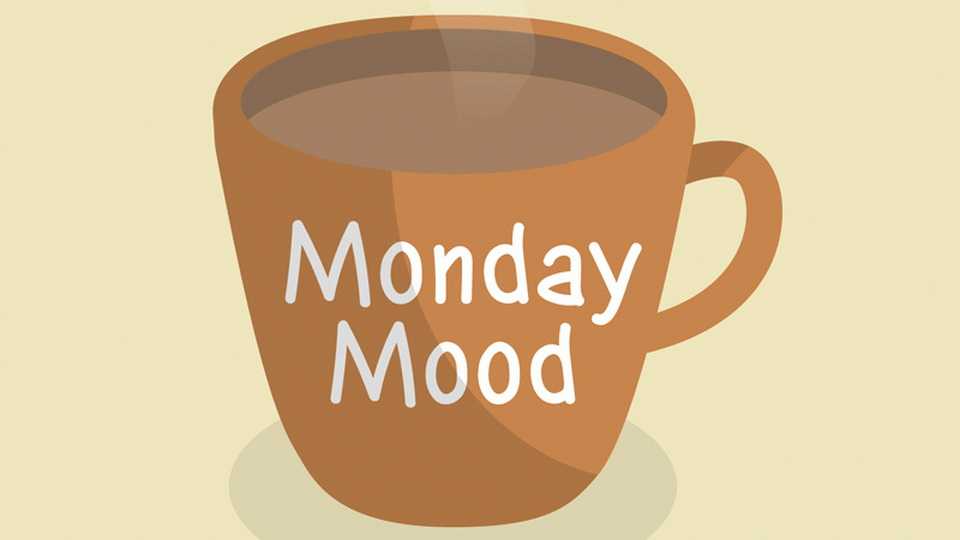
Download Monday Mood font, a hand-drawn comic typeface that brings your ideas to life with a playful and expressive touch. This font is the perfect fusion of whimsy and creativity, capturing the spirit of comic book lettering.
Designer: Ollie